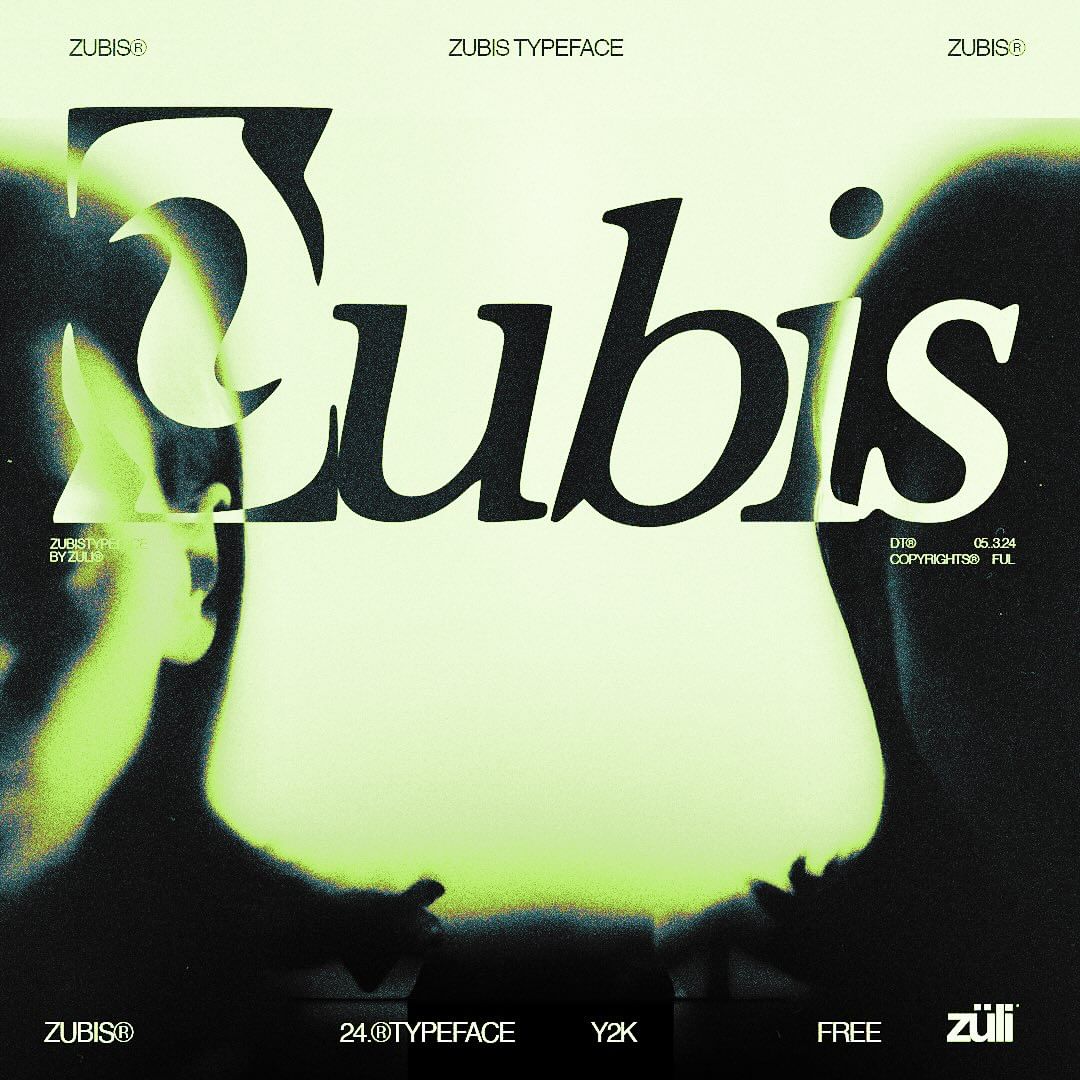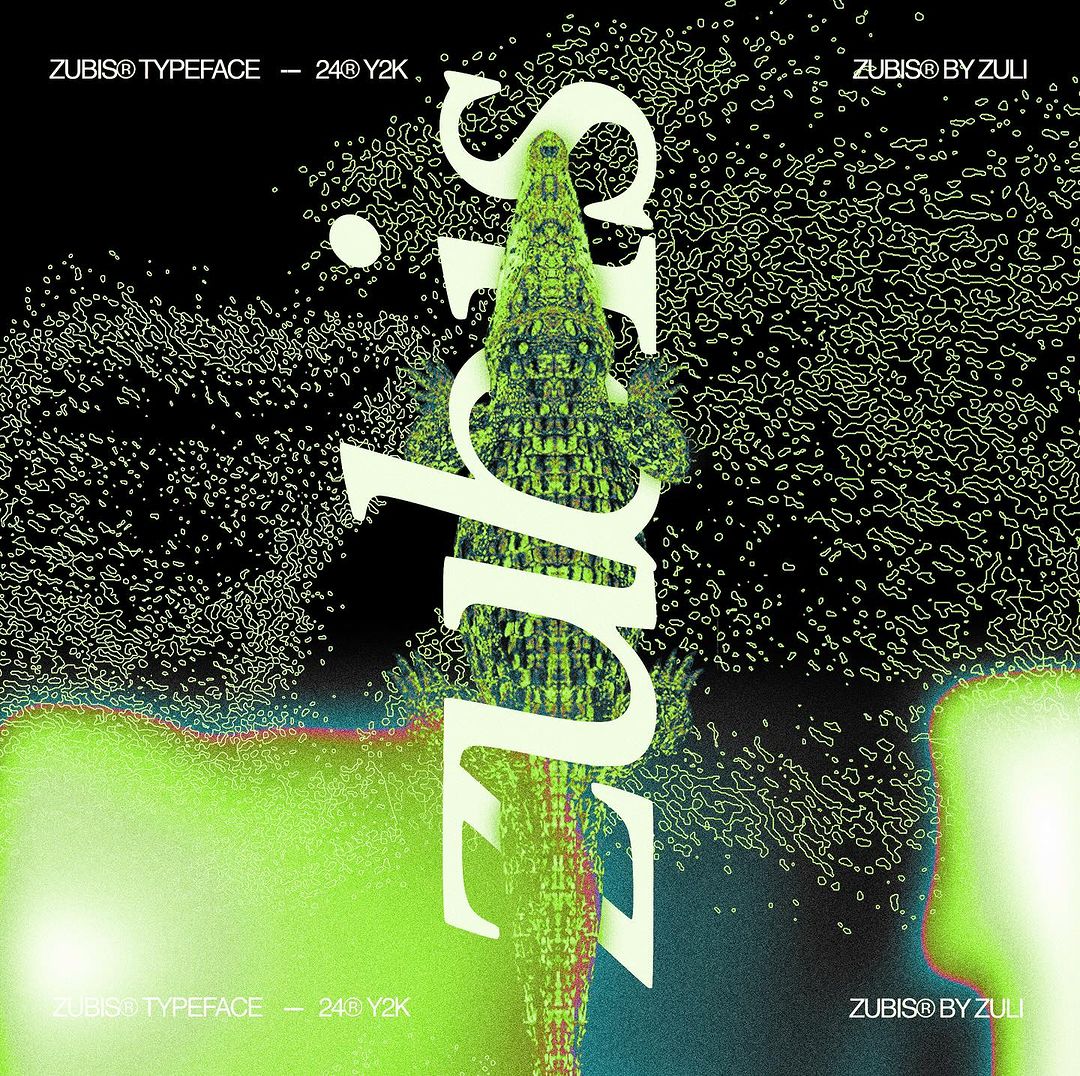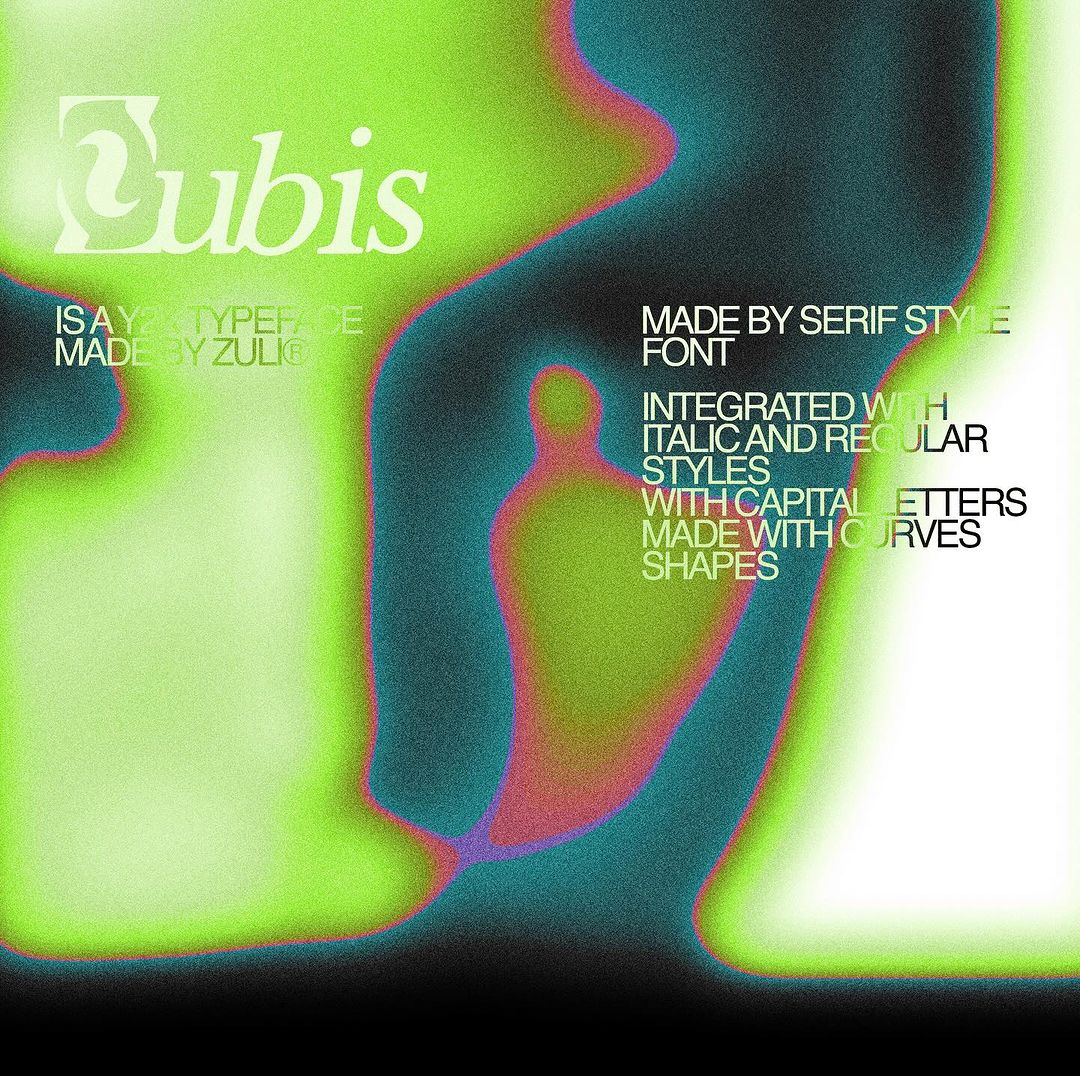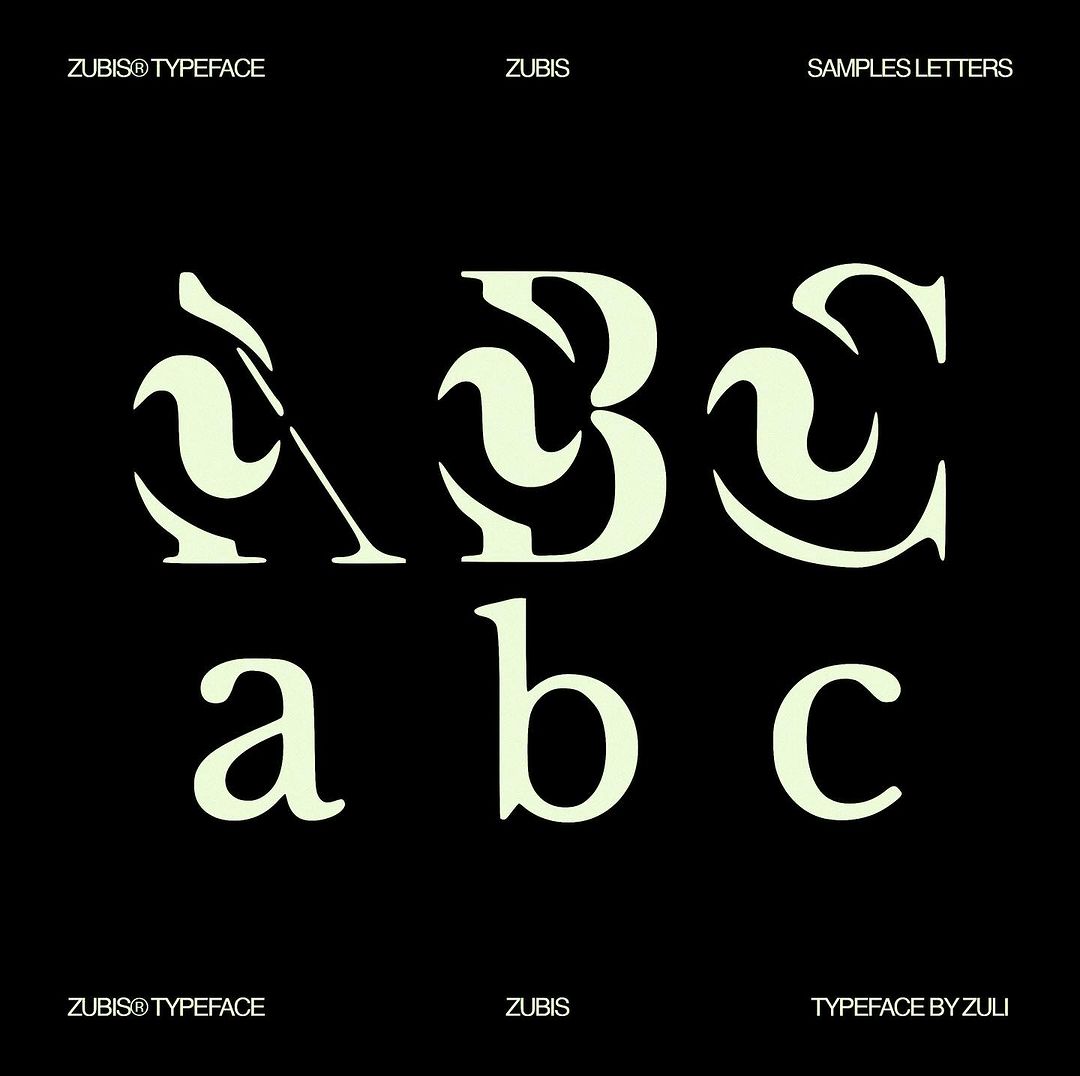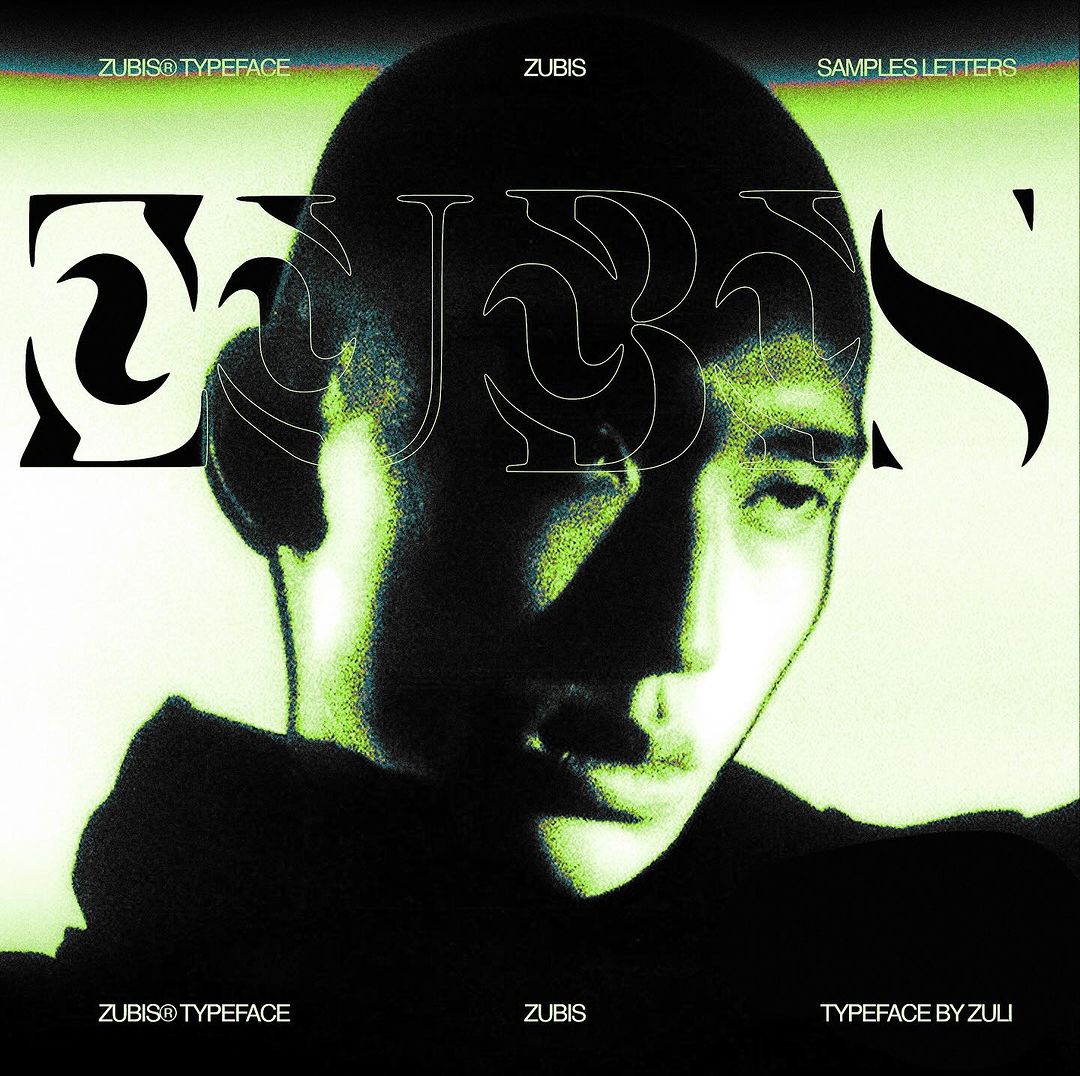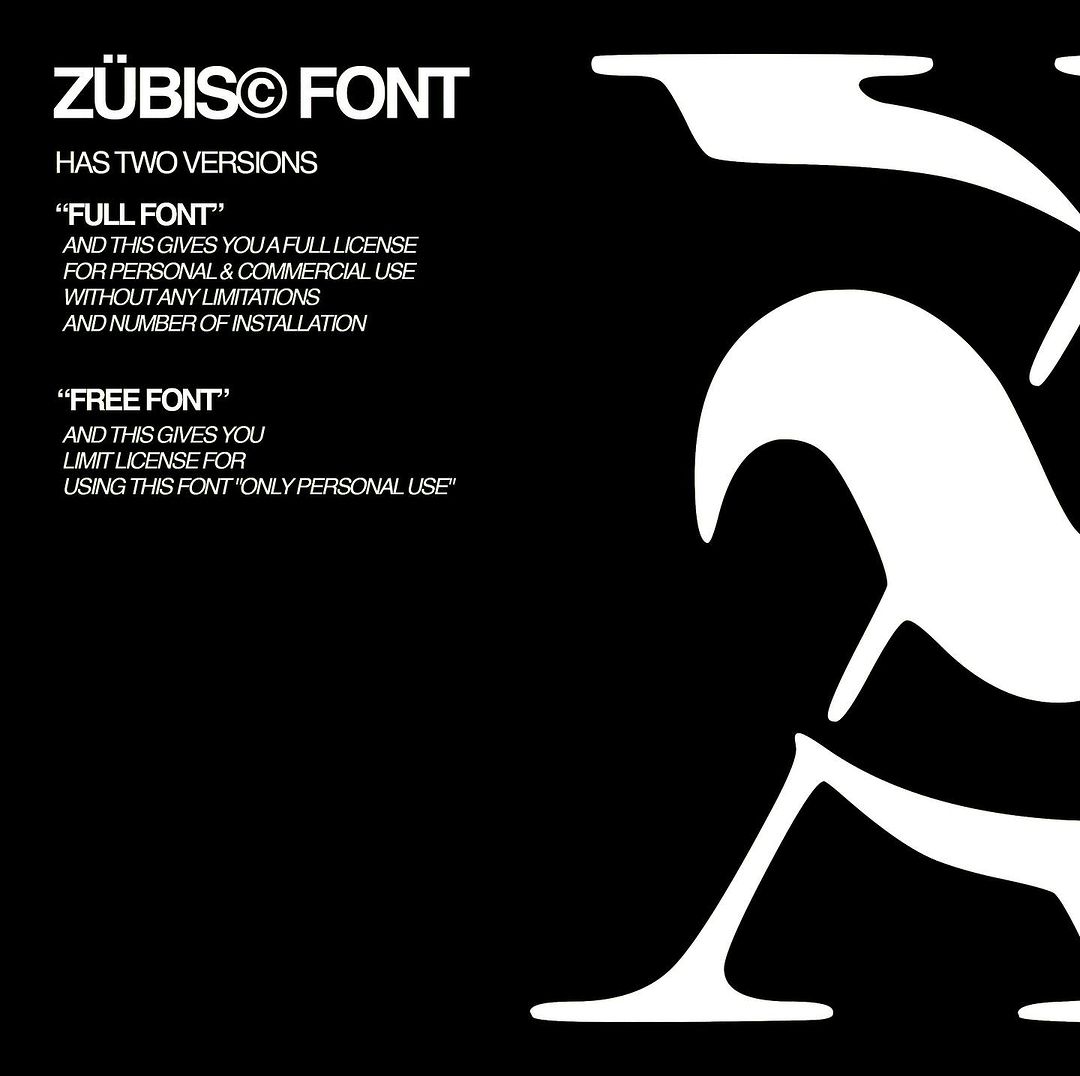
Zübis - Y2k Typeface
- Typeface is in Y2k Style
- Capital Letters With a Curve Shape
Zübis - Y2k Typeface is a commercial-use font featuring a Y2k style with curved capital letters. It is ready for use without any need for editing and can be installed without limitations.